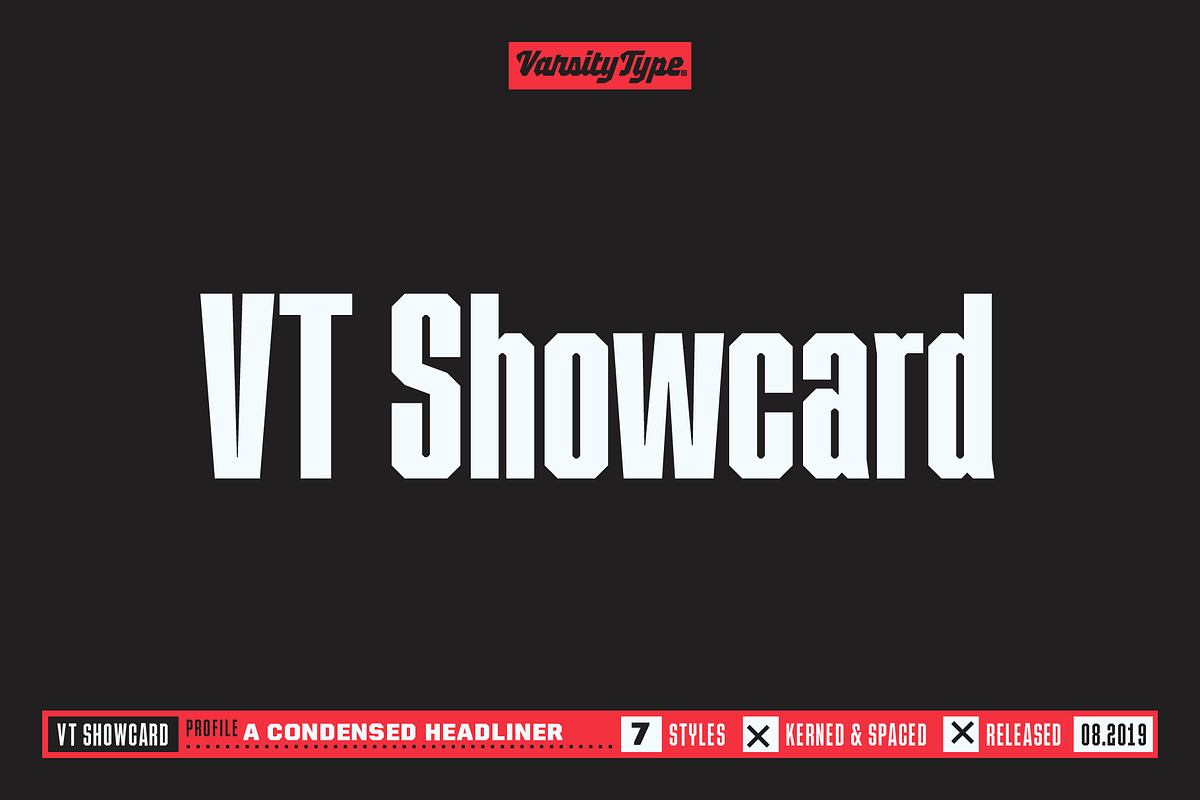
VT Showcard Font Free Download is a bold, eye-catching display typeface that brings a vintage poster vibe to any creative project. Designed to grab attention, this font is perfect for signage, advertisements, retro branding, merchandise, and event promotions. Its thick strokes and playful character shapes make VT Showcard ideal for designs that need personality and punch.
Reminiscent of classic circus posters and old-school showbills, VT Showcard blends nostalgia with modern usability. Whether you’re creating a standout logo or an energetic flyer, this font adds flair and impact to your layout. It's especially effective in large formats, where its bold letterforms truly shine.